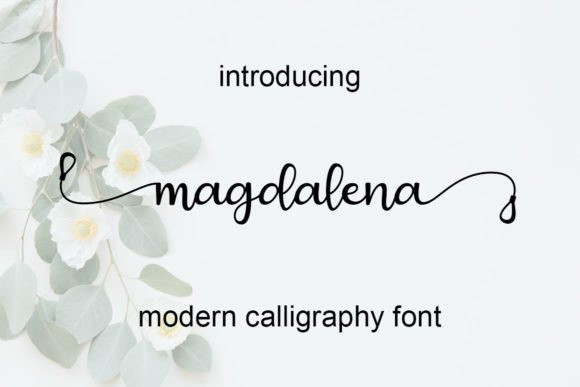
Magdalena Script Font
Magdalena Script Font is an enchanting handwritten font perfect for logos, branding, quotes, clothing, tote bags, business cards, websites, and many more. Fall in love with it, and let it take your projects to the highest level! This font is PUA encoded, which means you can access all of the glyphs and swashes with ease!